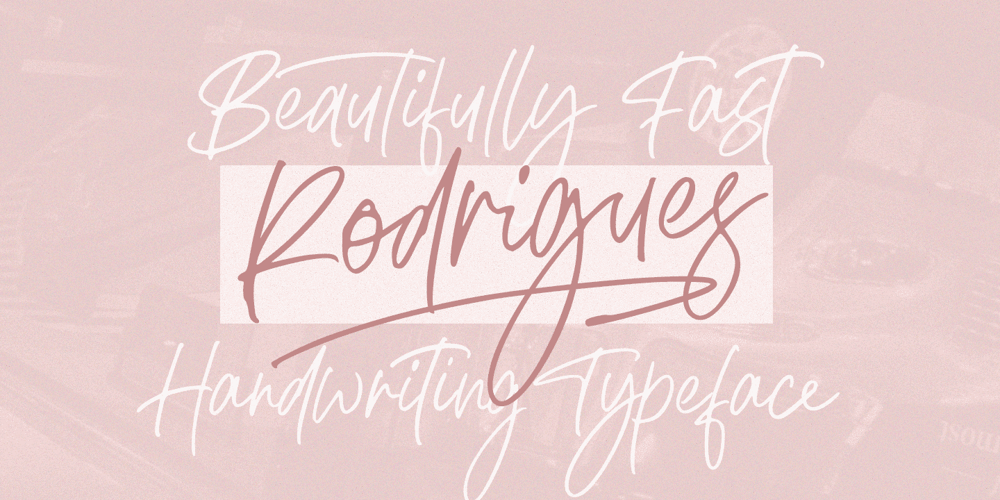
Rodrigues Font Family was designed by Måns Grebäck and published by Mans Greback. Rodrigues contains 2 styles and family package options. Rodrigues is a casual signature script, designed by Amin Mario and Mans Greback in 2020. A font full of personality and curves, created using quick strokes to for a natural handwritten effect, which to gives the font an organic look in a digital world. The typeface comes with OpenType features such as alternates and ligatures, a bold style and multiple decorative elements. Use { } < > [ ] anywhere in a word to create a swash. Example: Mag[icalThe font has extensive lingual support, covering all European Latin scripts.It contains all characters you’ll ever need, including all punctuation and numbers.